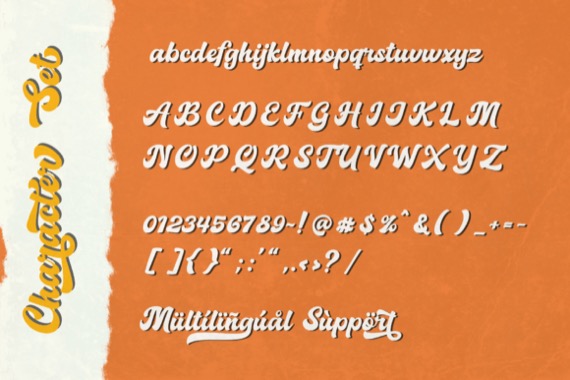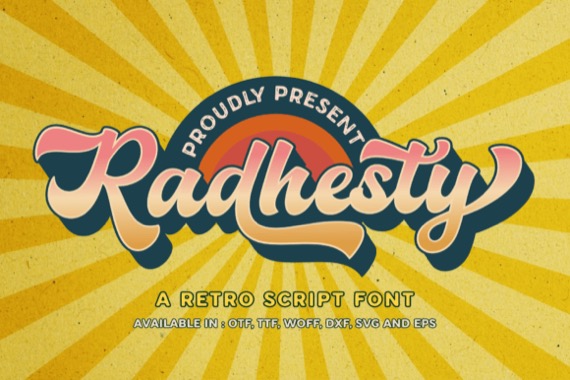
Radhesty created and shared by Sronstudio, is a charming retro script font that embodies the essence of nostalgia and vintage aesthetics. With its distinct letterforms, decorative swashes, and retro-inspired ligatures, it adds a touch of authenticity and personality to your designs. Whether you’re working on branding, packaging, posters, or any project that requires a retro touch, this font is a perfect choice.
Radhesty Retro Script Font